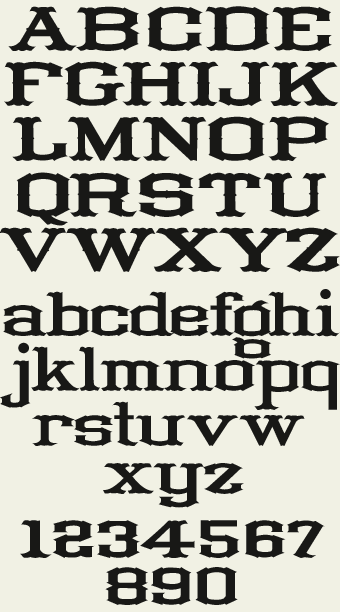
TUSCAN FULL BLOCK WITH THICK AND THIN
| LHF Tuscan Full Blockby Chuck Davis |
Extended typeface with half-circles cut out of the tops and bottoms. Ornamental caps. Includes large and small caps, punctuation and numerals.